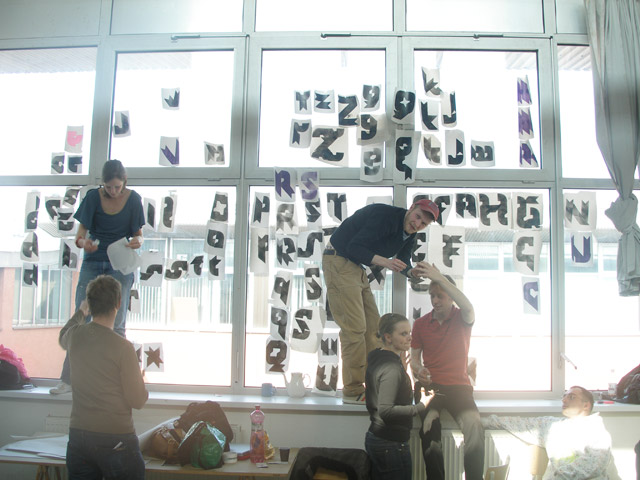
On the second day the whole group took the two chosen, sexy modules and turned them into a typeface. Everybody worked with exactly the same two modules. Every person sprayed one word, in capitals and lowercase. Round noon there were different designs for every character, and democratically the best design for every glyph was selected, A-Z and a-z. The speed was high on the first day, but also the second day didn't allow time gaps. By the end of the day, the whole typeface was turned into a digital font file, but also posters and leaflets had been made by hand. All just in time for the real thing: the final wedding.